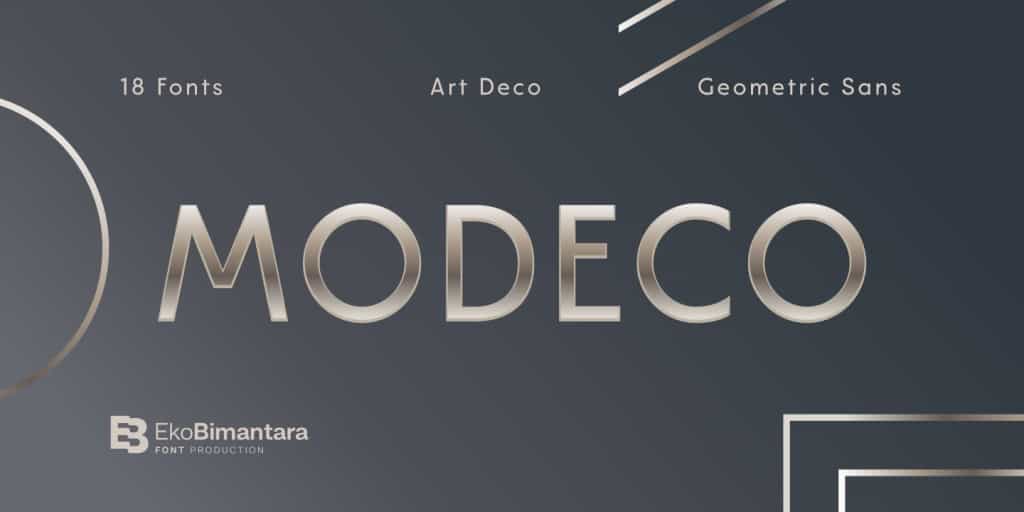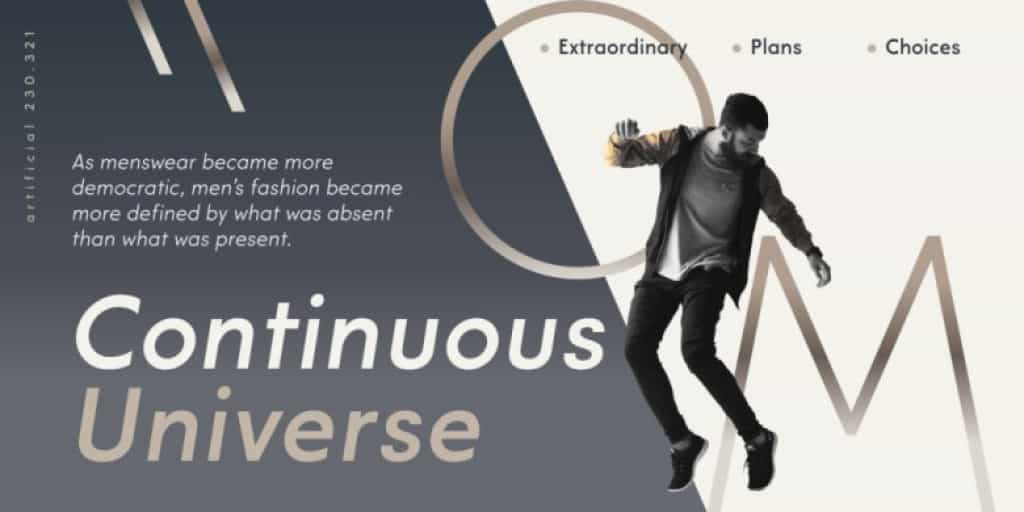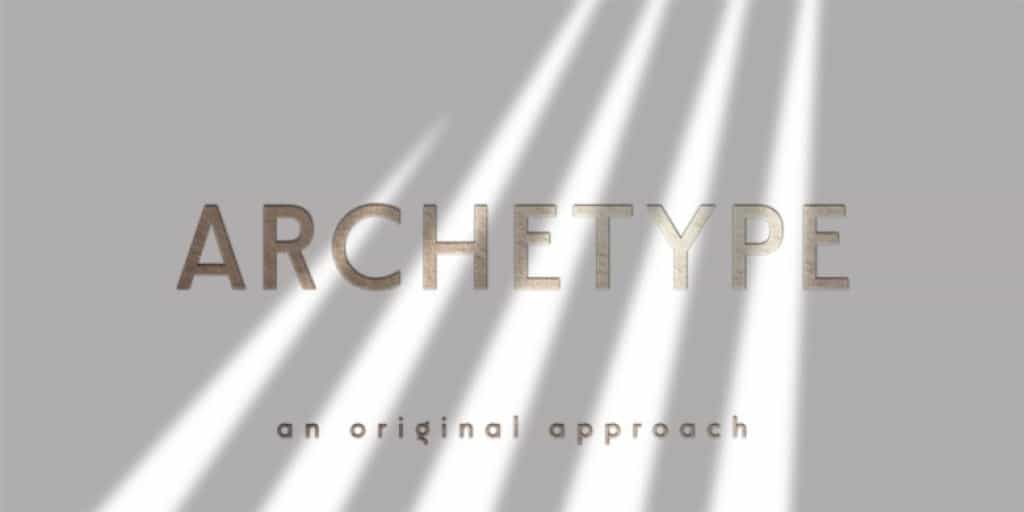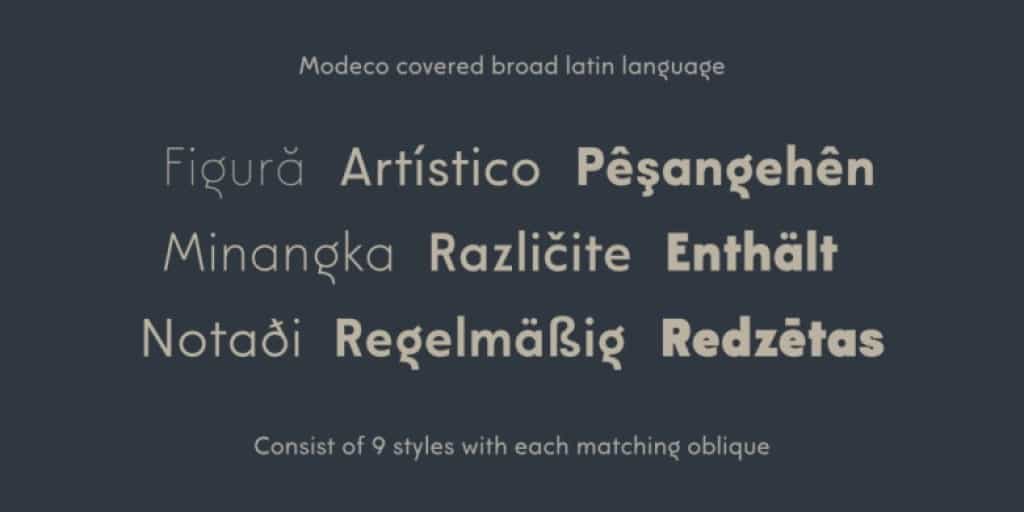
Modeco is a blend of art deco and modern styles. It showcases elegance, class and glamour as 1920’s aesthetic trends, mixed with geometric sans serifs using a practical approach and a complete font family style.